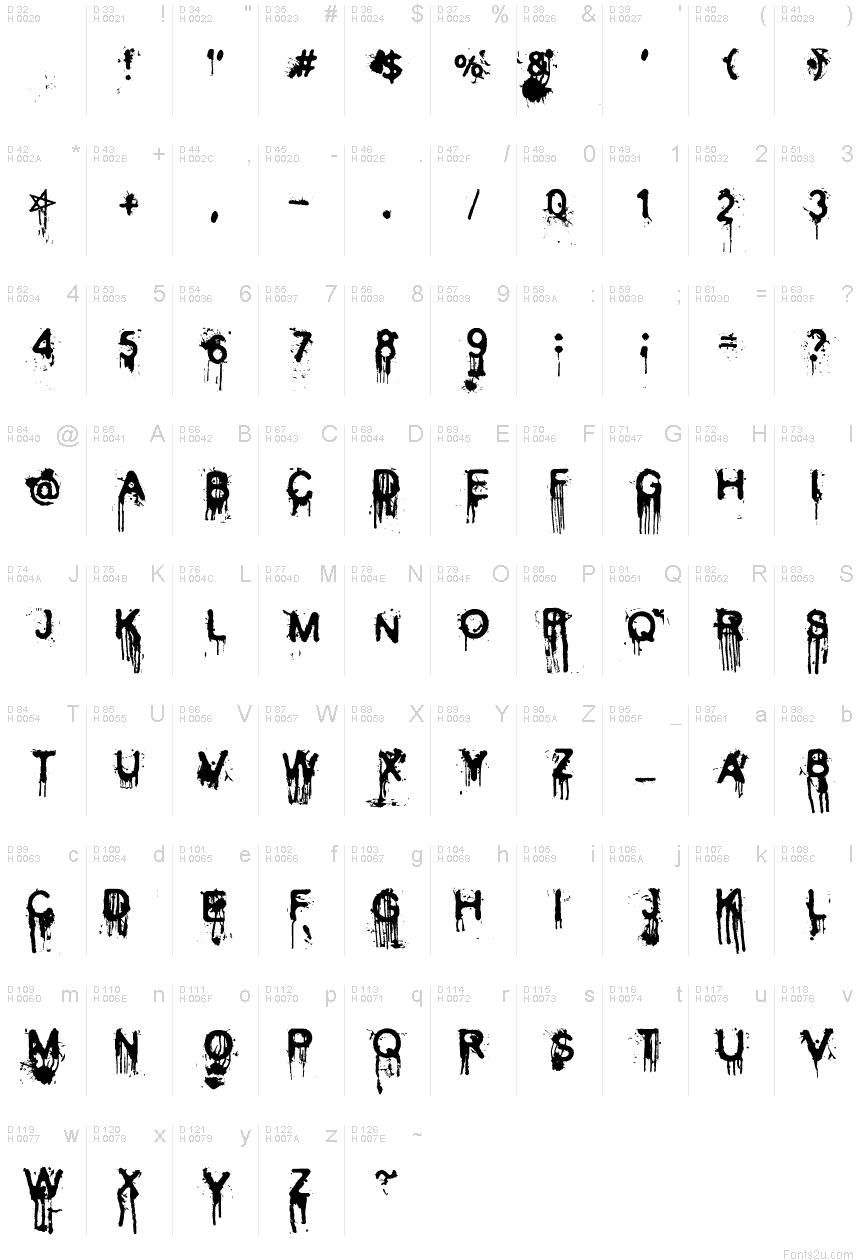
Cold Night for Alligators
Cold Night for Alligators font by Junkohanhero oozes across the page like wet ink on concrete, with splattered edges, heavy drips, and gouged-out interiors that feel straight out of a nightmare alley. This is a free distorted horror font that instantly pushes any title into raw, chaotic territory, the kind of texture you can almost smell-smoky, metallic, and a little rotten.
Using Cold Night for Alligators, your loudest ideas hit even harder: horror posters, metal band logos, game titles, Halloween flyers, escape room branding, and eerie book covers all gain a gritty, handmade menace. This free font works best at large sizes where every smear and splatter can breathe, and it pairs cleanly with a simple geometric sans serif for supporting text so the chaos stays focused on your main headline.